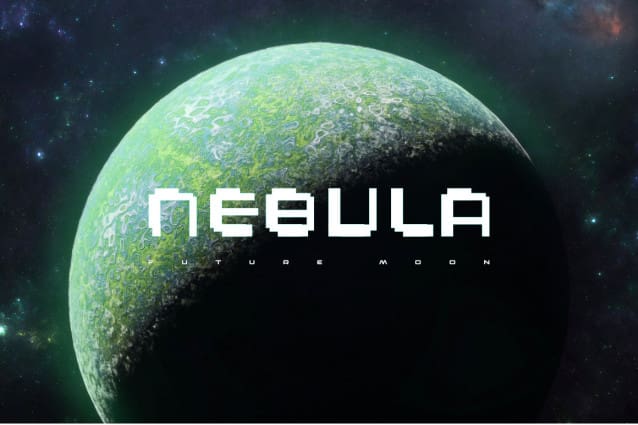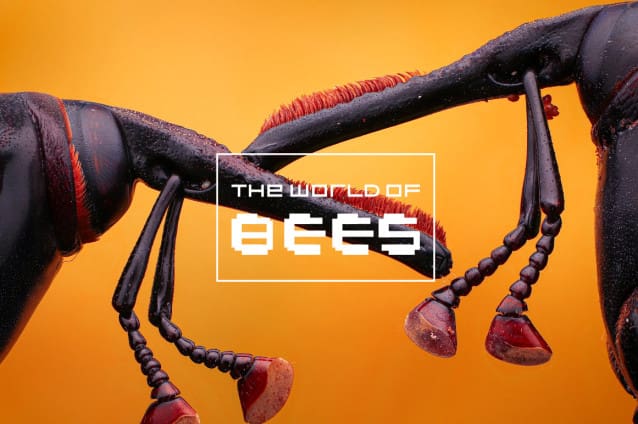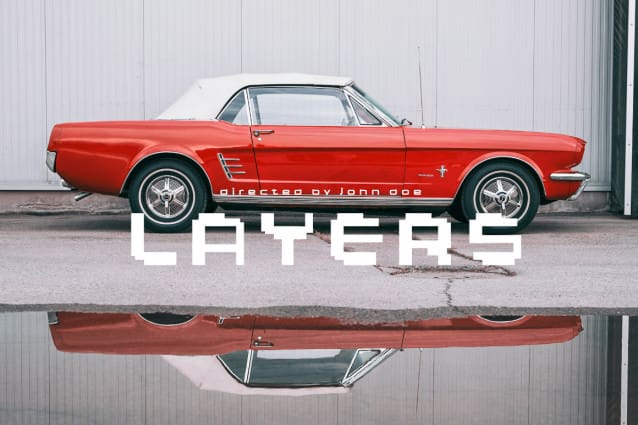
Aeogo Pixellated Font
Aeogo Pixellated Font is a fun pixelated display font. You can use it to create unique designs, book covers, birthday cards, T-shirts, greeting cards, as well as many other creations that require a cute, friendly vibe.This font has a limited character set. However, it is available for commercial use under the terms of our ‘free font’ license, which can be found on our website at https://ffeeaarr.my.id/.